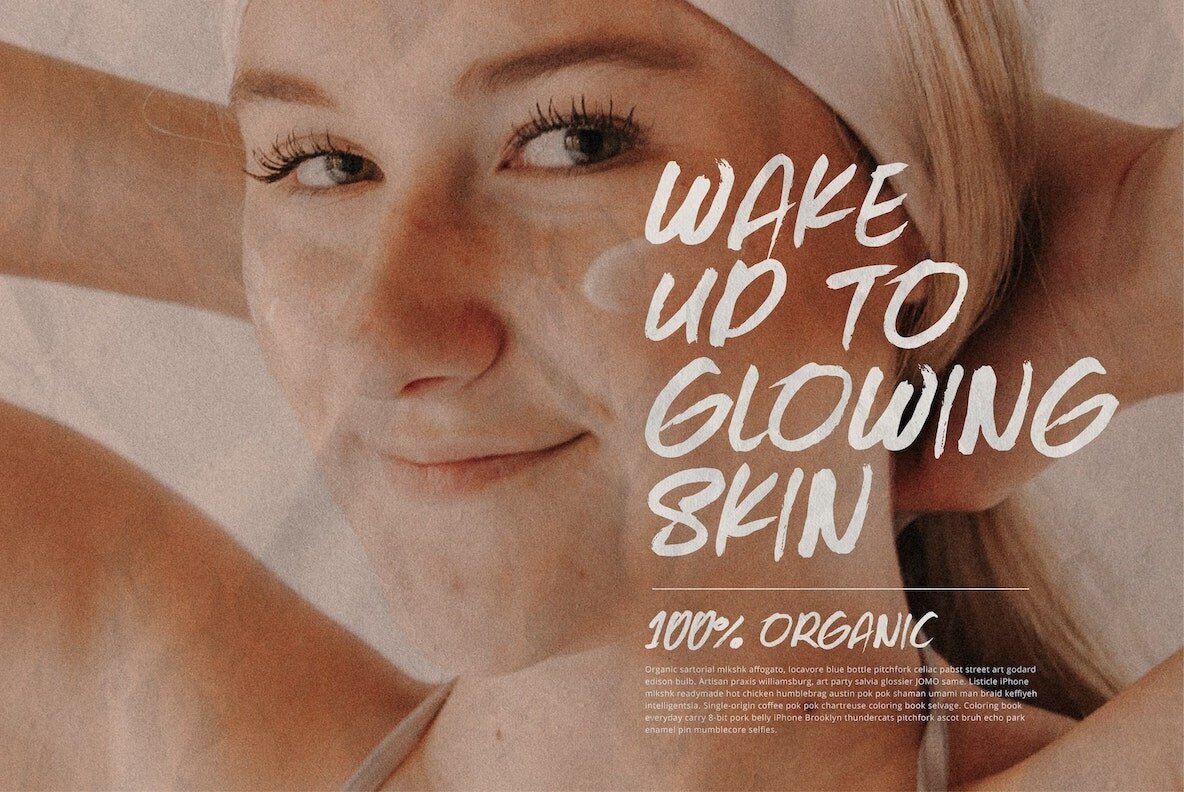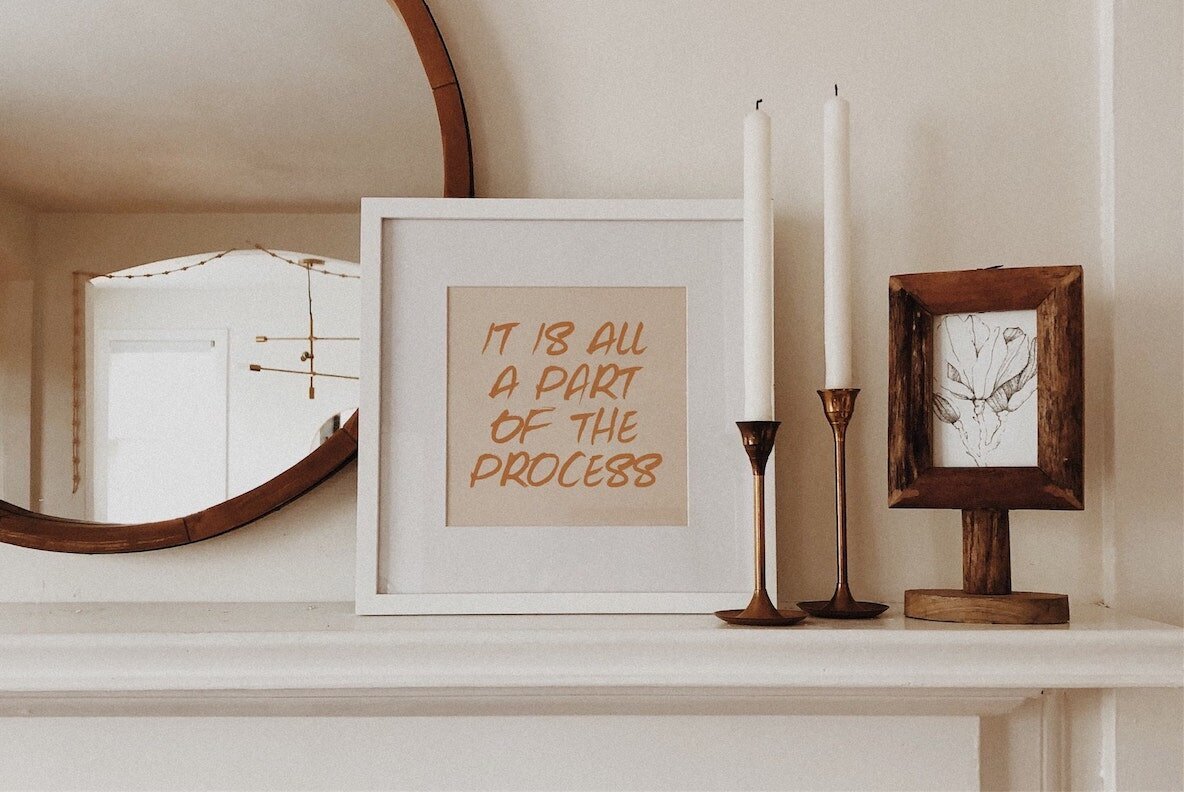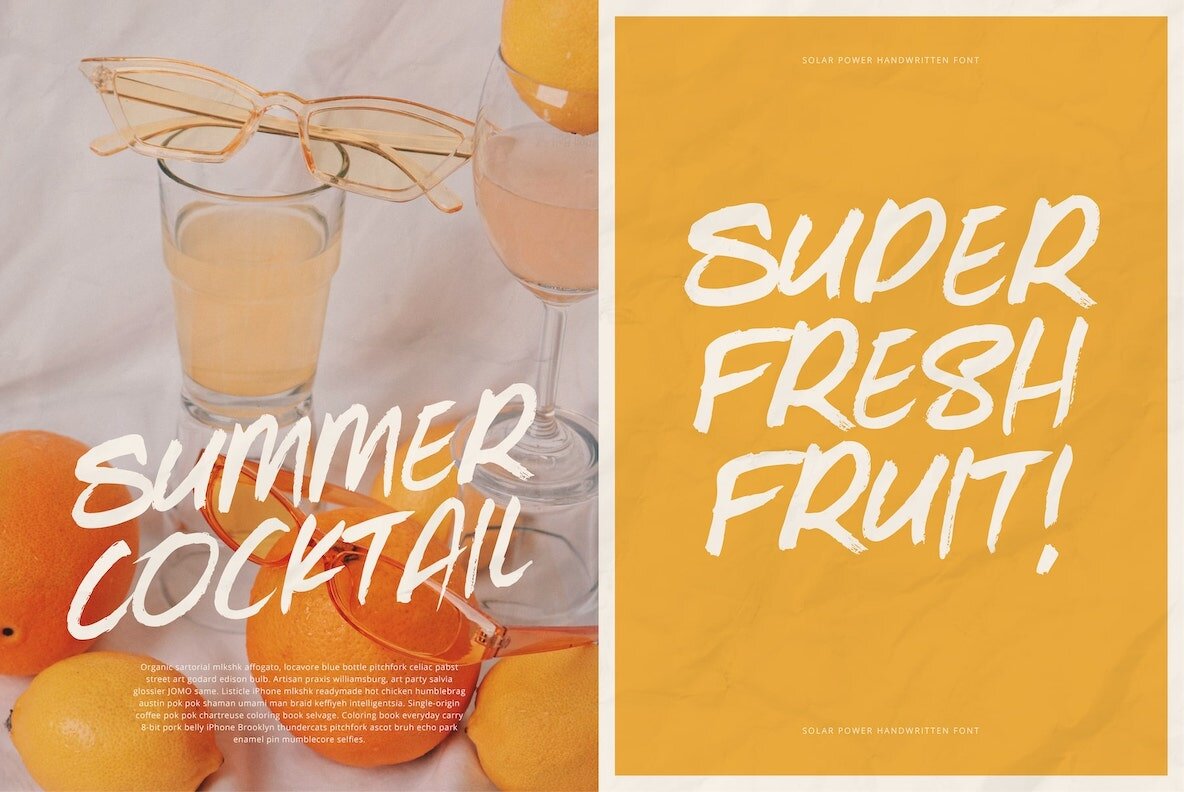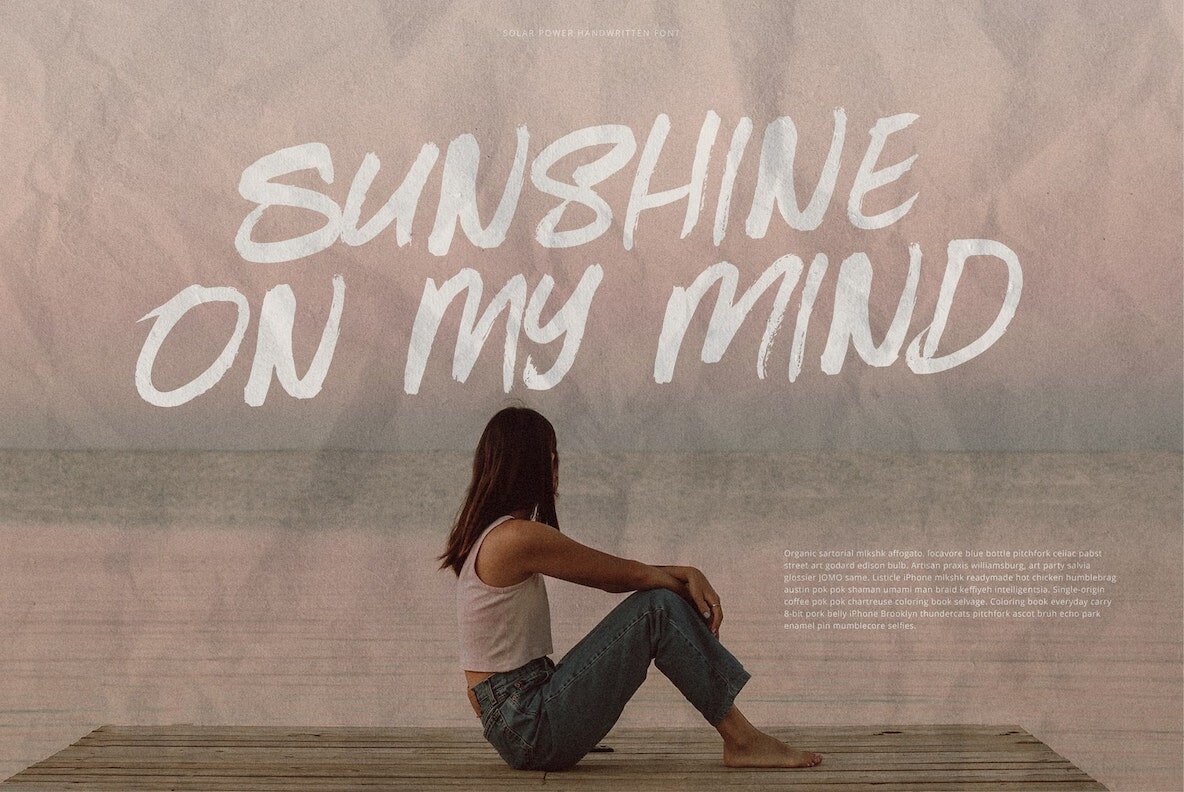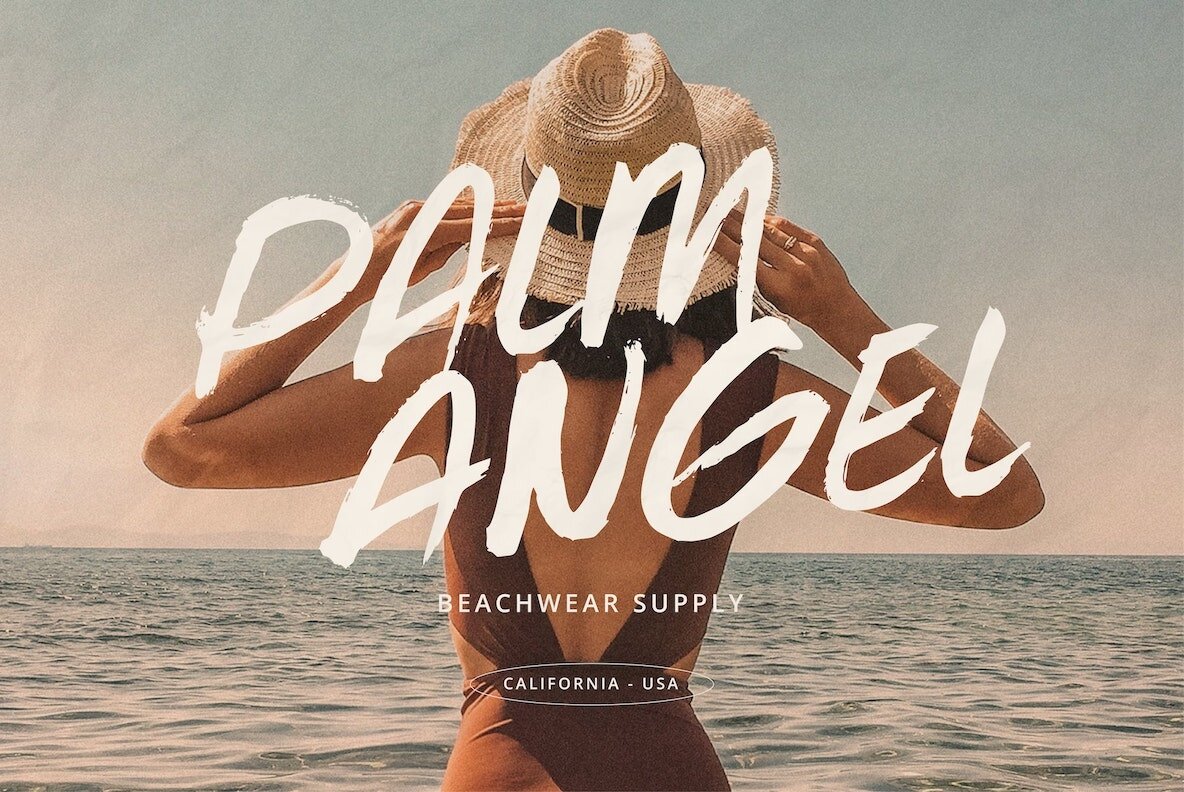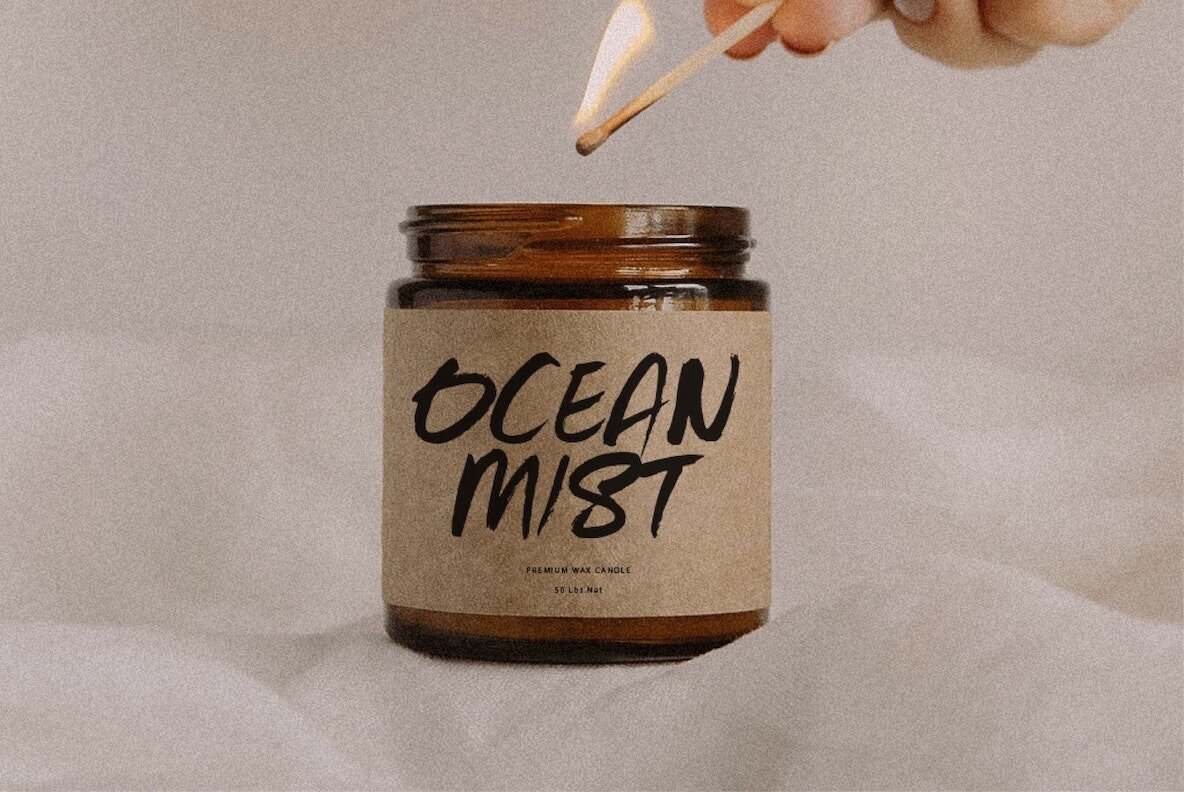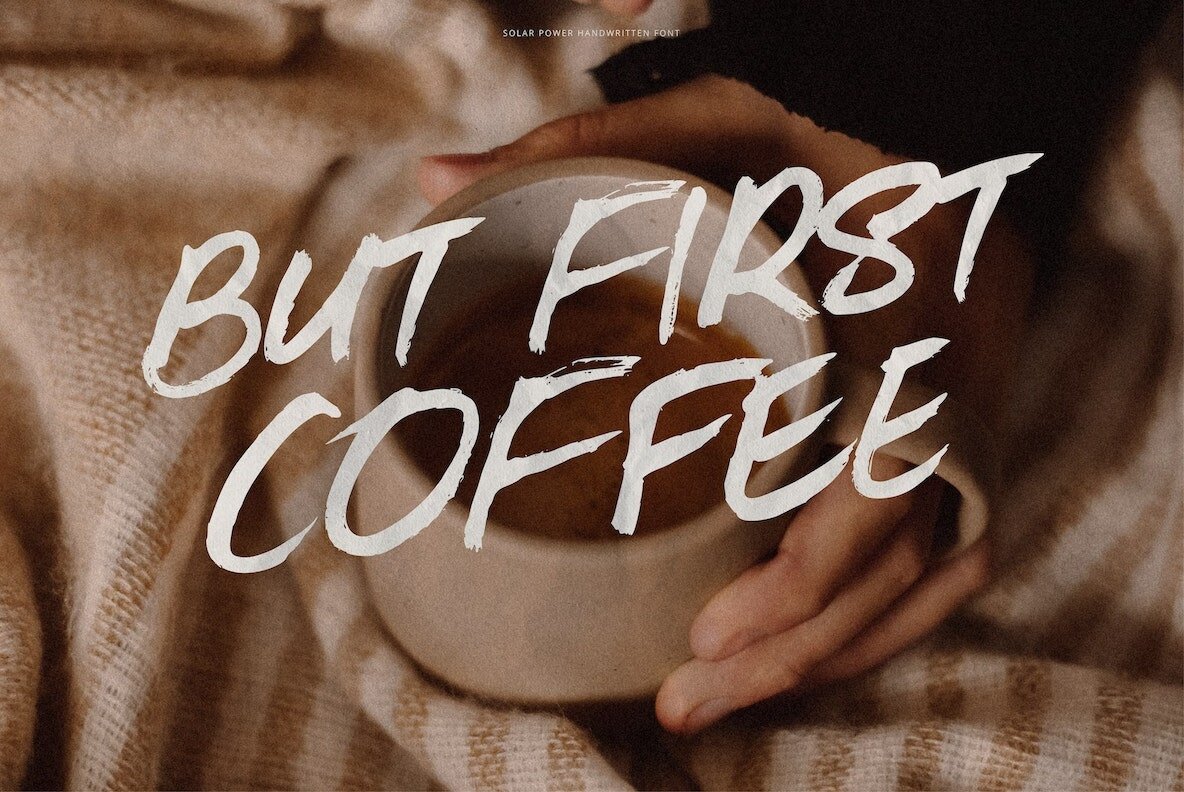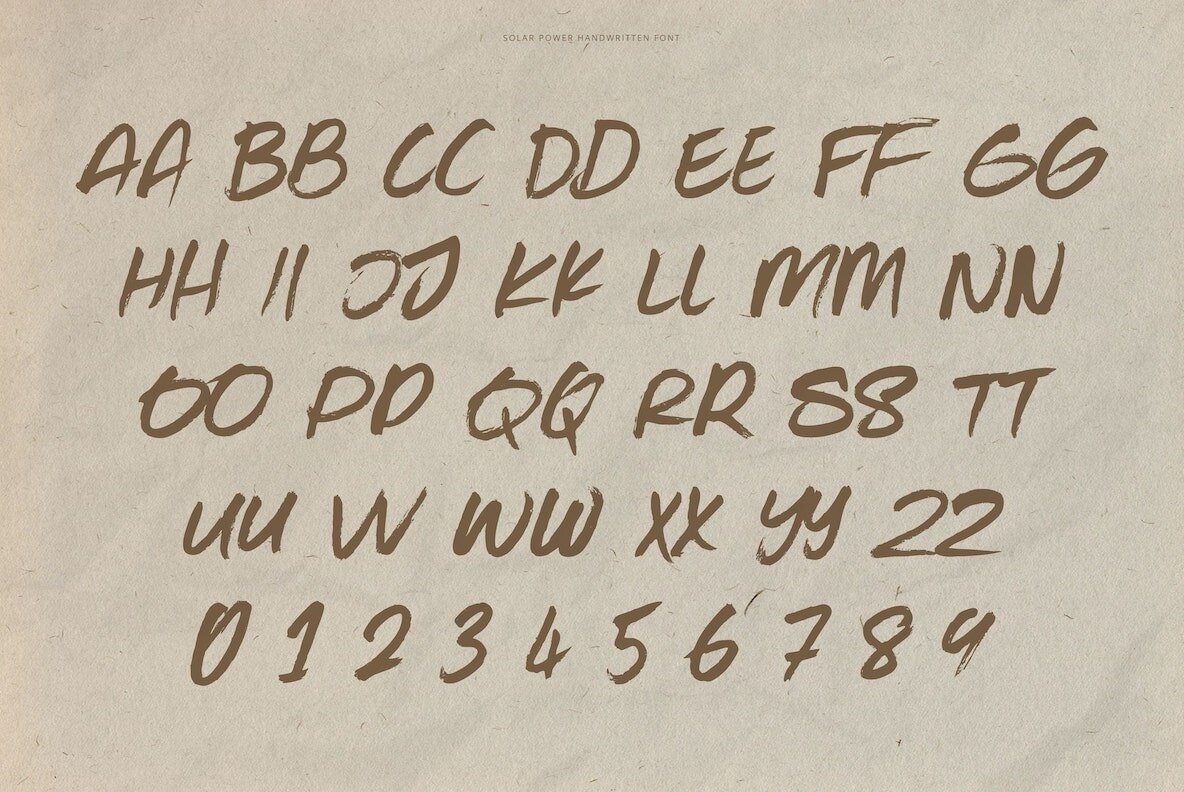
Solar Power Font
Solar Power Regular
Solar Power is an organic handwritten brush font that's perfect for your brand content. This font features two sets of uppercase characters so you can achieve a natural hand drawn feel with your design.